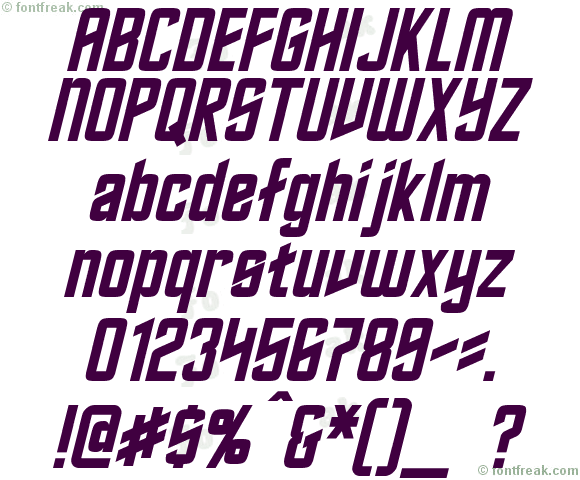
Roddenberry Oblique
About Roddenberry Oblique
Roddenberry Oblique, designed by Neale Davidson in 2011, is a striking display font that embodies a modern and dynamic aesthetic. This sans-serif typeface features an oblique style, giving it a unique slant that conveys movement and energy. Its bold stroke weight and moderate contrast enhance its legibility while adding a touch of flair, making it visually engaging for various applications. The spacing is well-balanced, ensuring that each letter stands out, while the overall design incorporates subtle decorative elements that contribute to its contemporary feel.
This font is ideal for a variety of creative projects. It works particularly well in movie posters, where its energetic style can capture attention and evoke excitement. Additionally, Roddenberry Oblique is perfect for branding and marketing materials, such as logos and promotional graphics, where a modern touch is crucial. Its distinctive appearance also makes it suitable for event invitations, including parties and corporate events, where you want to leave a memorable impression. Content creators will find great value in using this font for social media graphics and digital marketing campaigns, as it helps convey messages with a punch.
Targeted towards graphic designers, small business owners, and content creators, Roddenberry Oblique offers versatility and a contemporary edge that can elevate any project. The font stands out not only because of its unique oblique style but also for its ability to resonate with modern audiences. By embracing the Roddenberry Oblique font free download, users can unleash their creativity and make a statement in their designs, showcasing a perfect blend of boldness and sophistication.